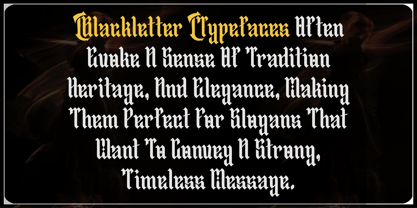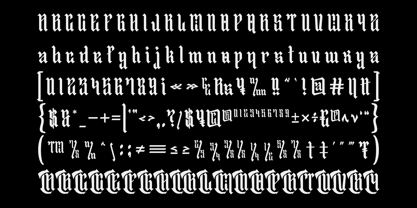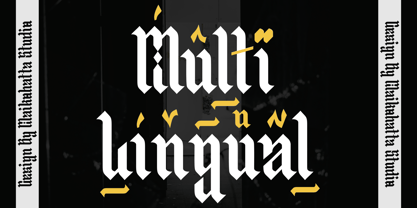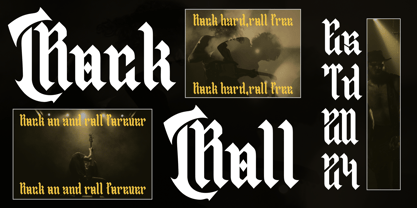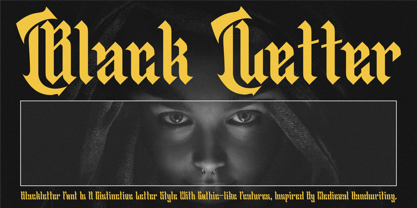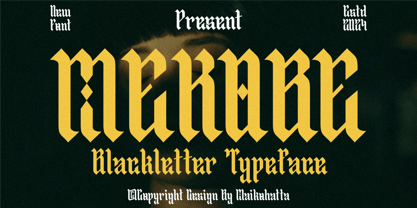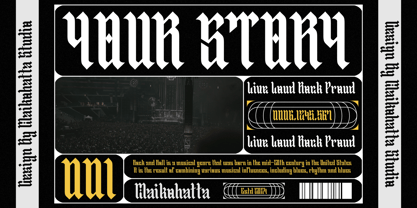
Mekobe
by Maikohatta
The Mekobe Font Family was designed by Gilang Ternadho and published by Maikohatta. Mekobe contains 1 styles. More about this family
Introducing our new product**Mekobe** - Blackletter Typeface
Mekobe is a type of lettering with a distinctive and strong appearance, inspired by medieval writing styles. Its main features include upright and bold letterforms with sharp vertical lines, creating a rigid and geometric look. This font exudes an elegant, mysterious, and powerful charm, making it suitable for adding a historical touch to modern designs such as logos, posters, or book covers.
Designers: Gilang Ternadho
Foundry: Maikohatta